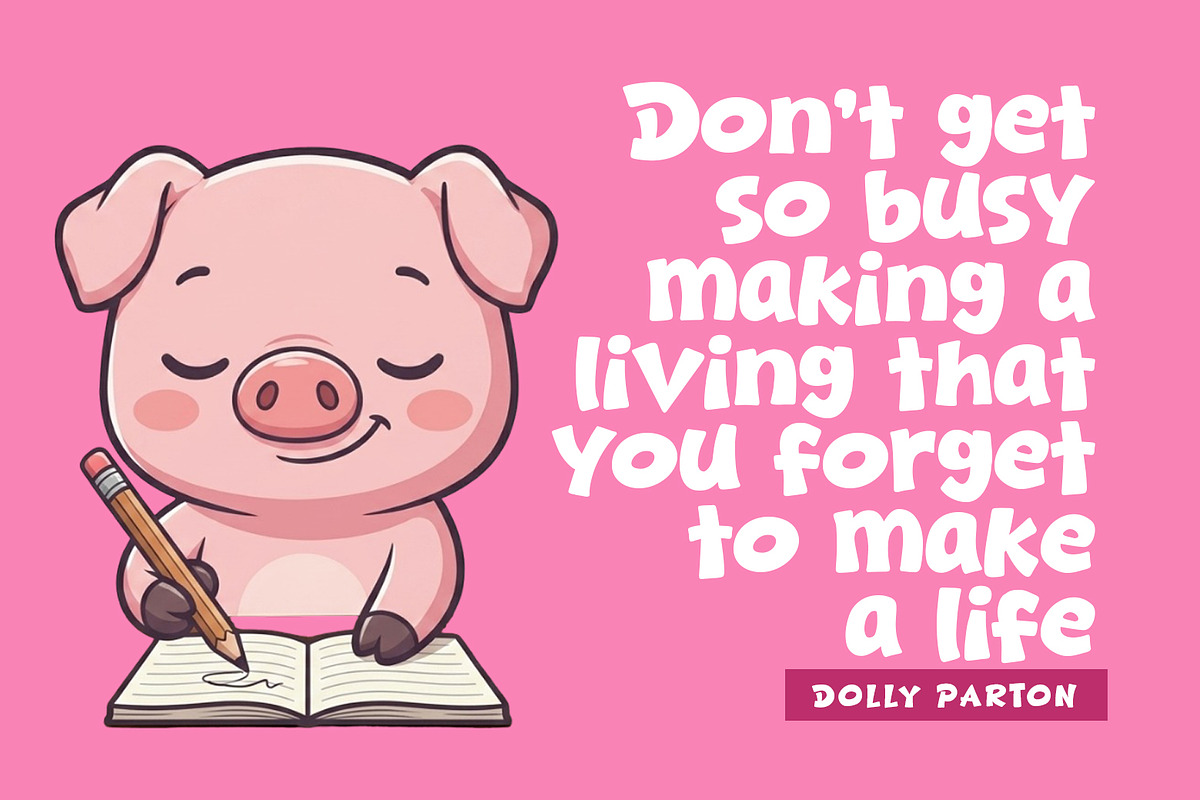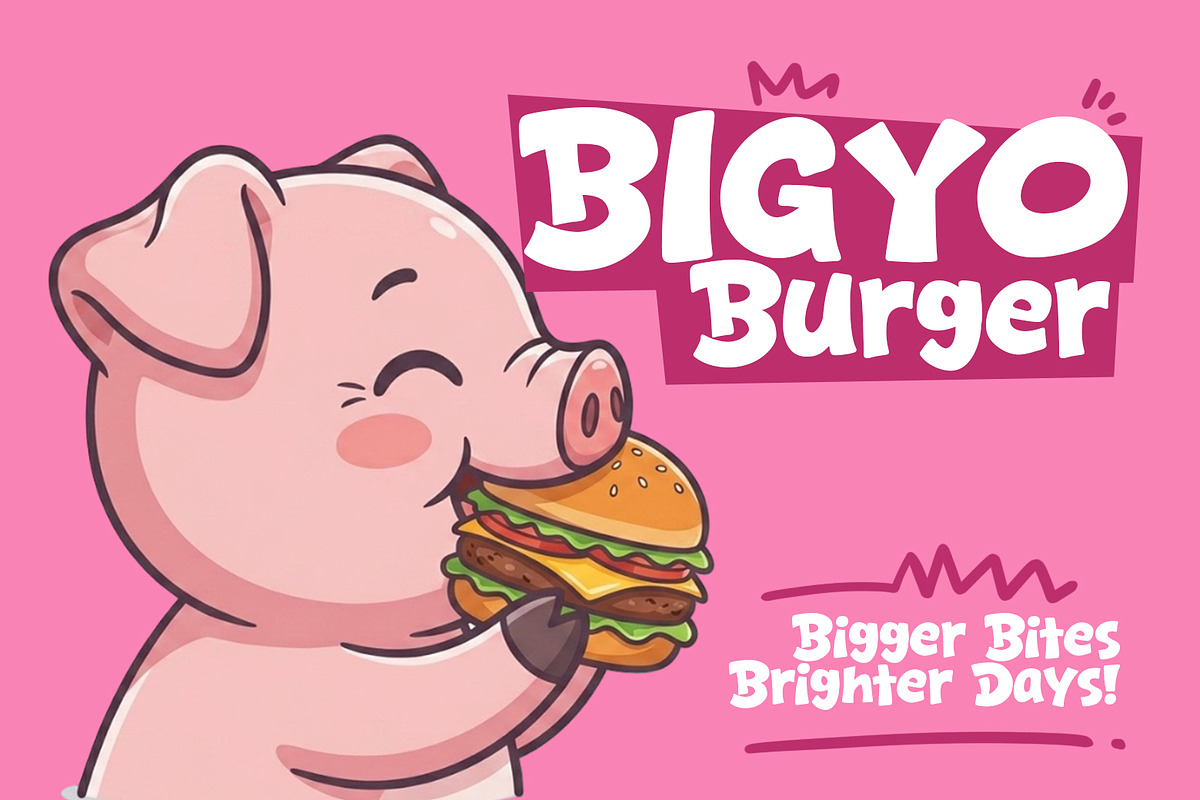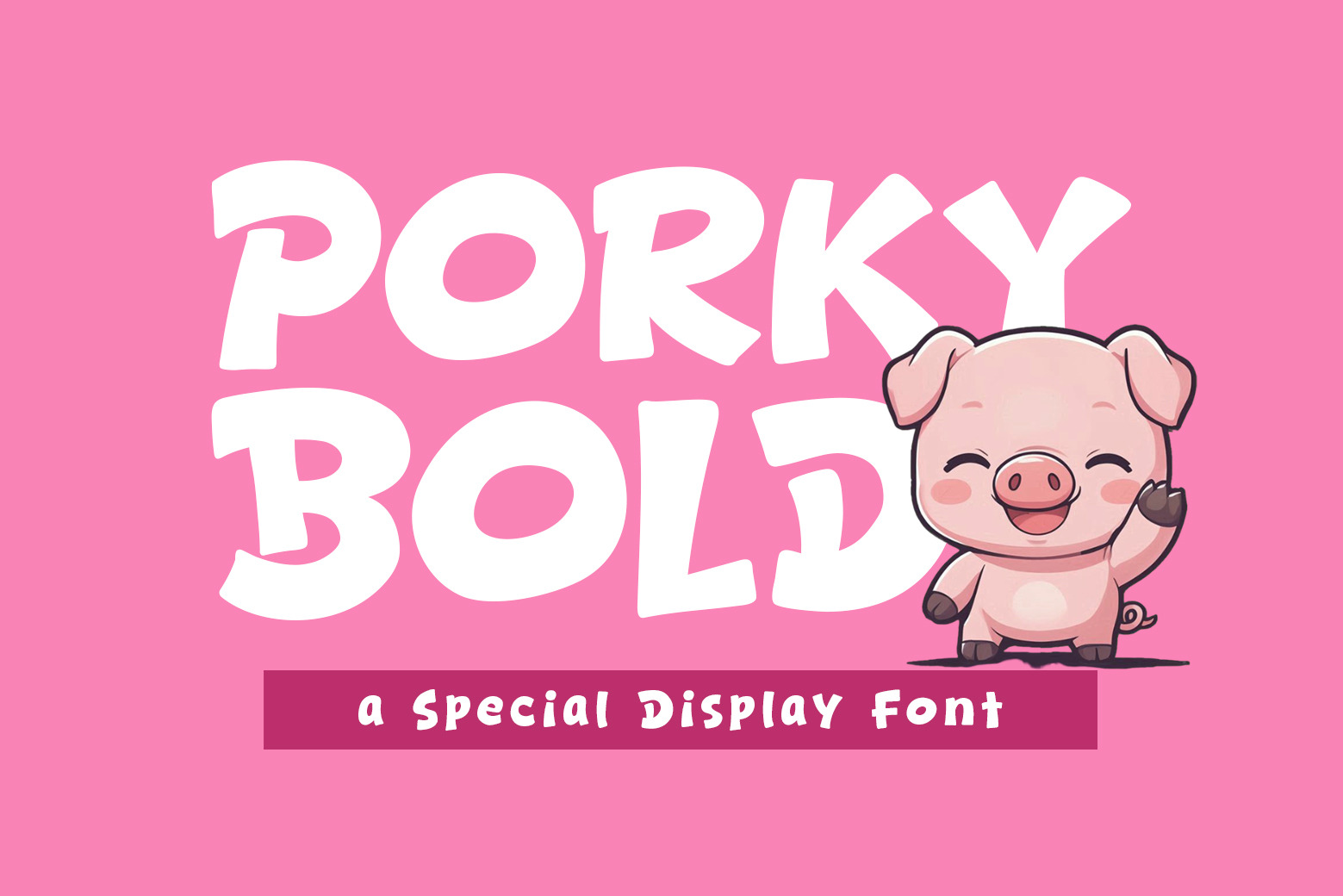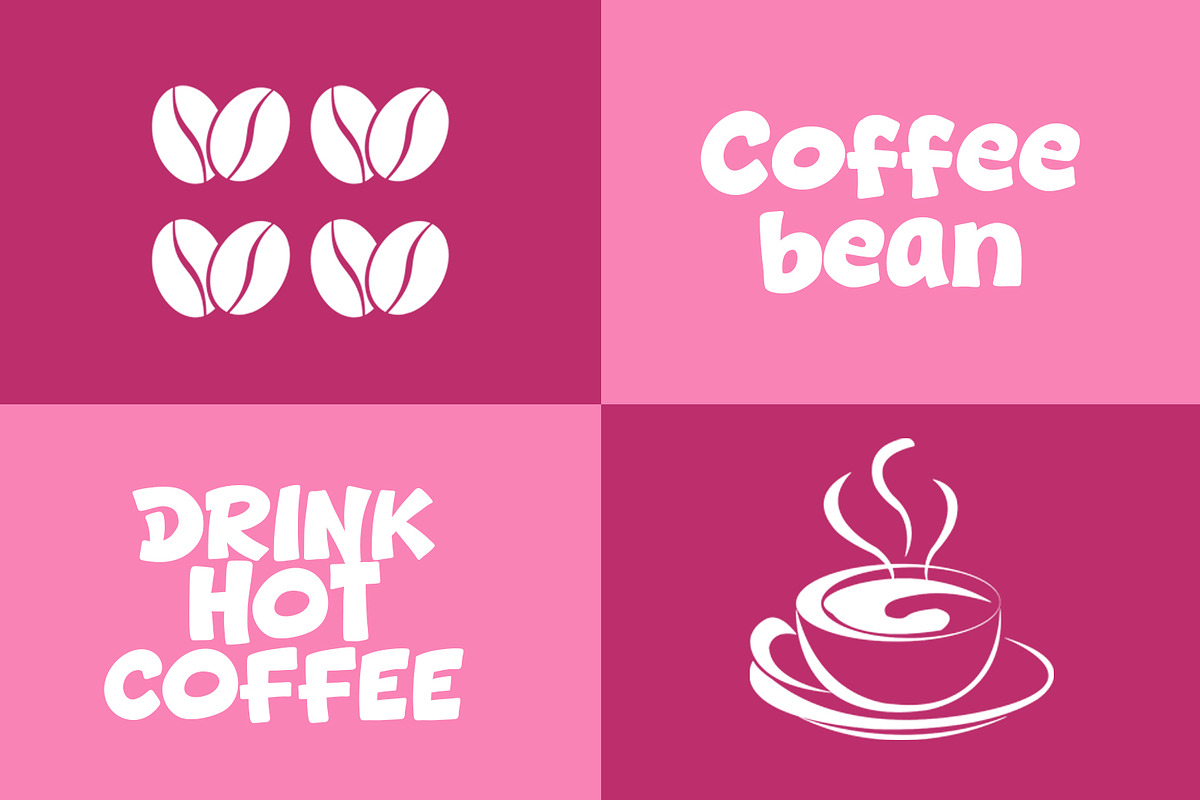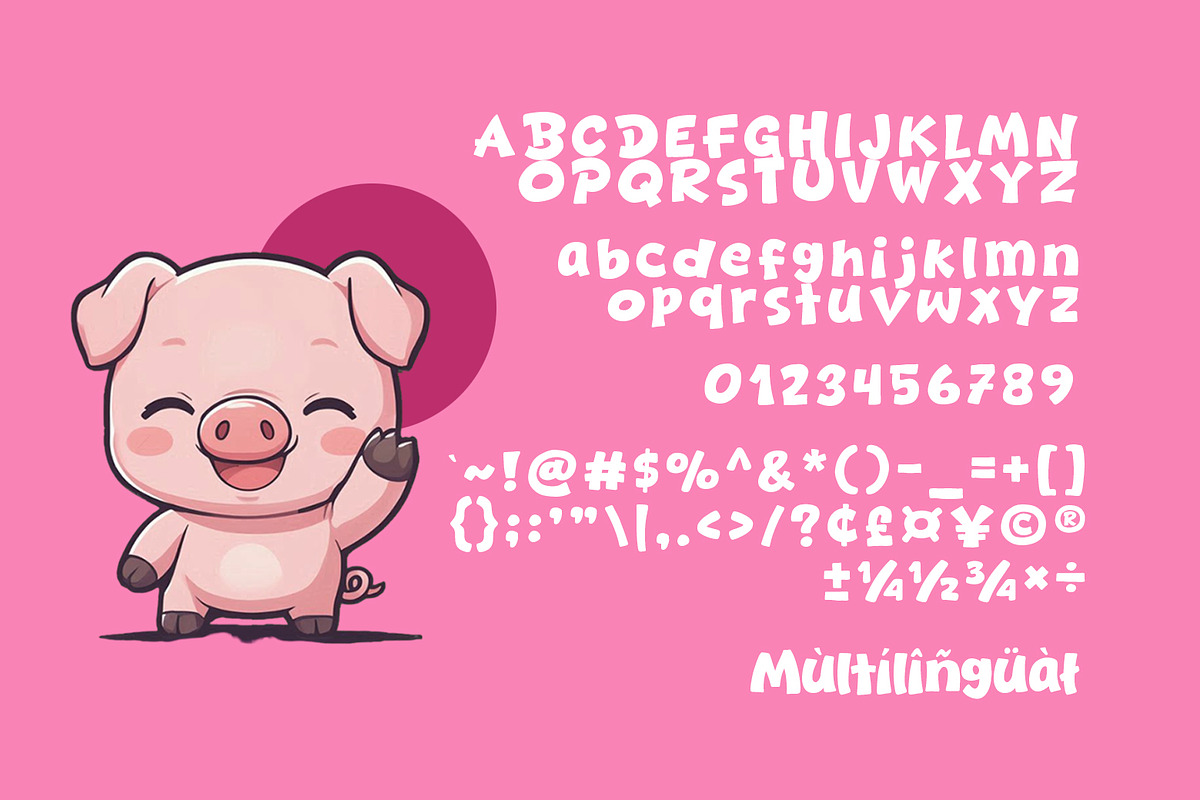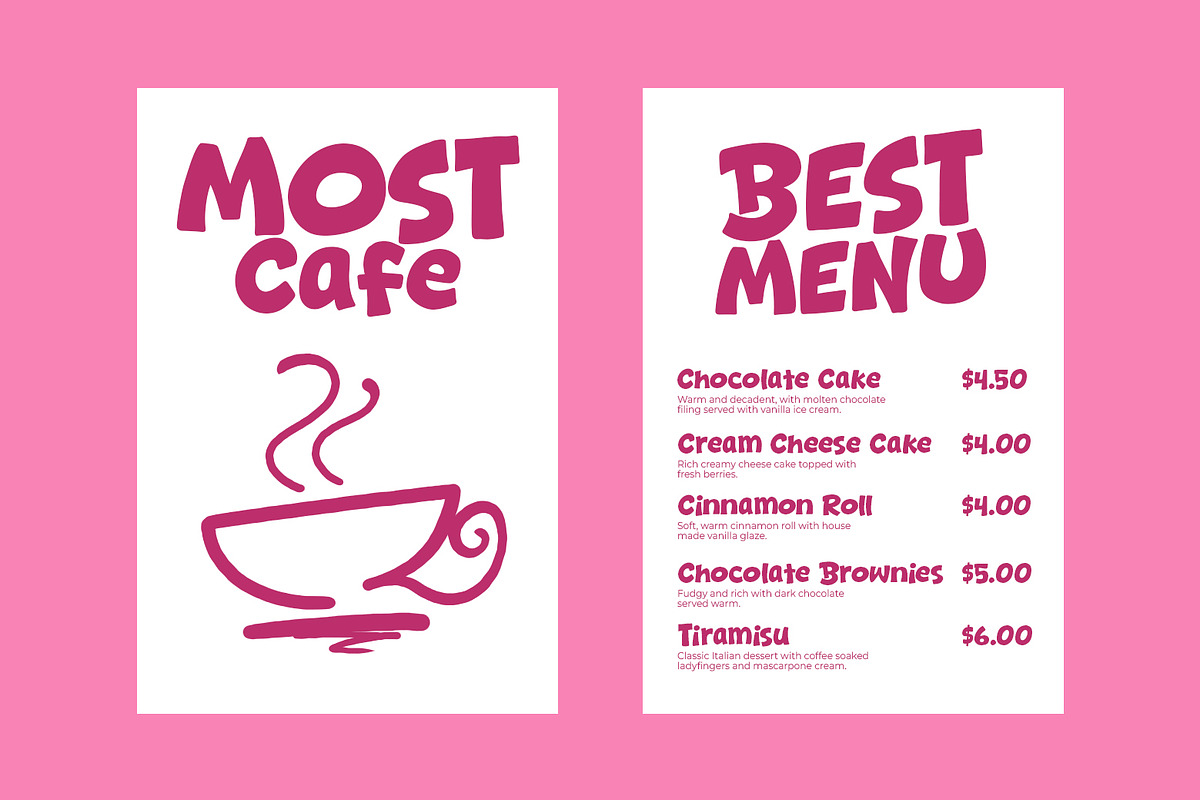
Porky Bold - Cozy & Display Font
Introducing, Porky Bold font a fun display typeface with cheerful theme for your fun project. Slow Home font suitable for logo, branding, greeting card, poster and any design that you create.